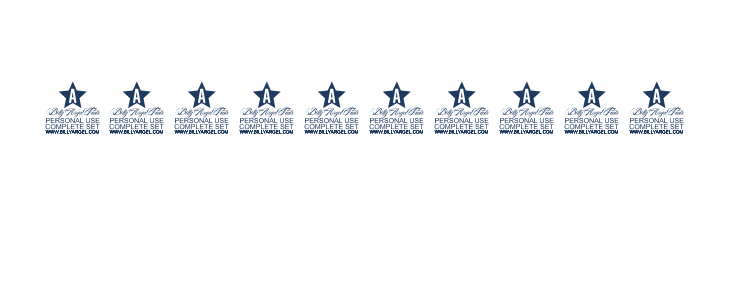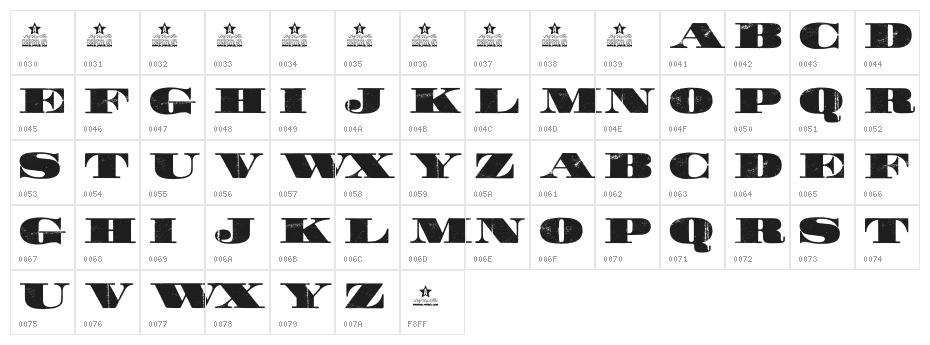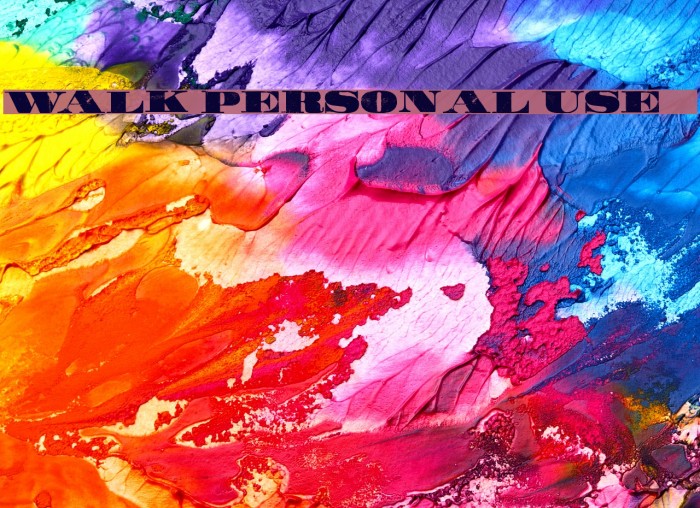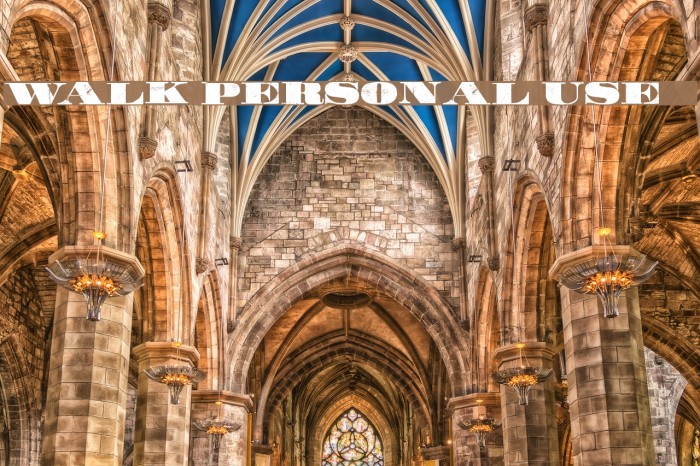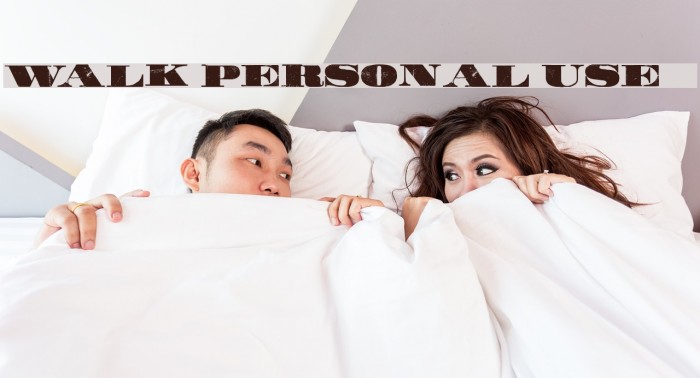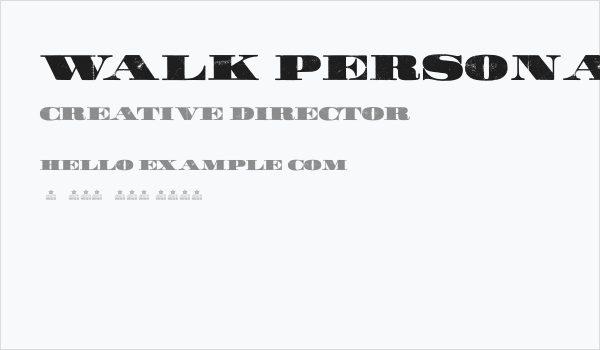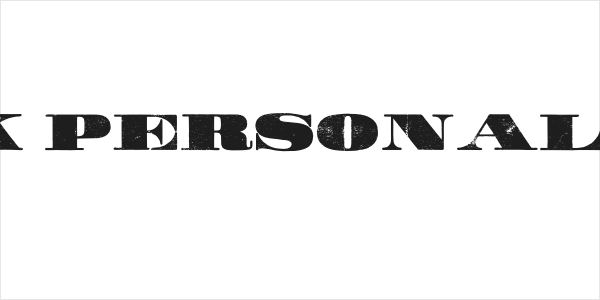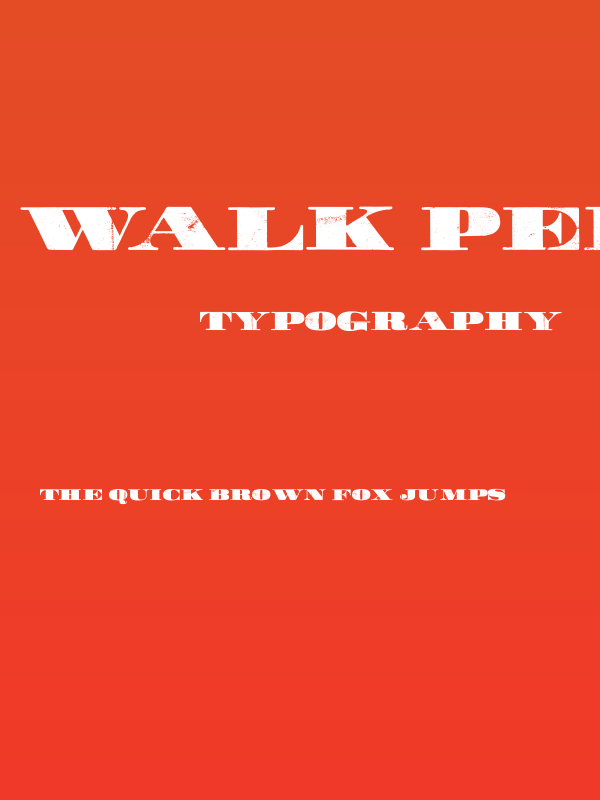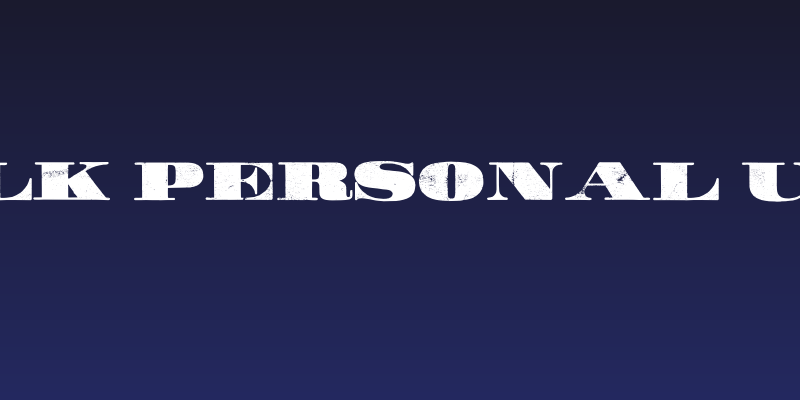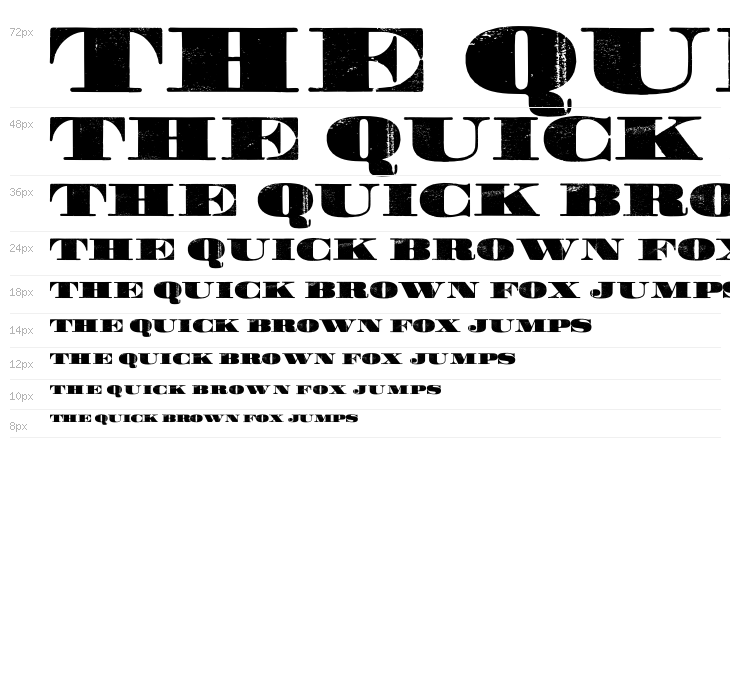
WALK Personal Use Font
WALK Personal Use Description
This font features a bold, distressed style with a strong, impactful presence. The characters are uppercase, with a rugged texture that gives a vintage, worn-out appearance. The strokes are thick and uneven, adding to the distressed aesthetic. The font is ideal for designs that require a bold statement, such as posters, headlines, or branding materials that aim to convey a sense of strength and durability. Its unique style makes it stand out, capturing attention with its rough and edgy look.
| Proposed Projects | Ideal for posters, headlines, branding, and any design needing a bold, vintage look. |